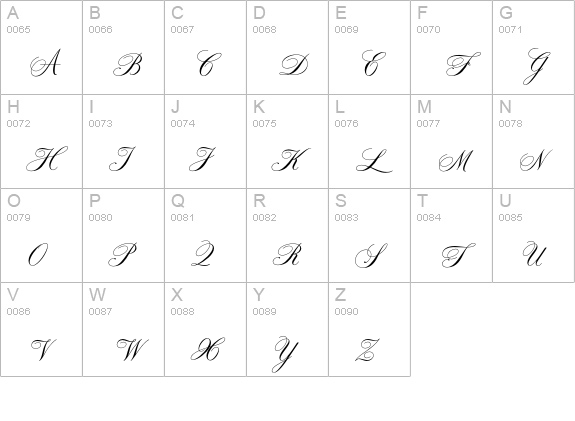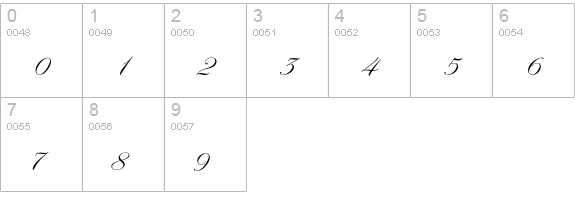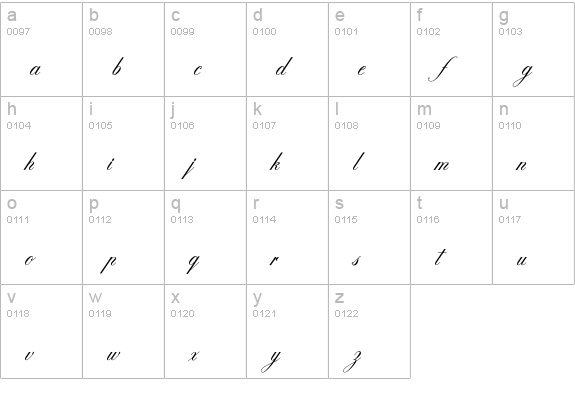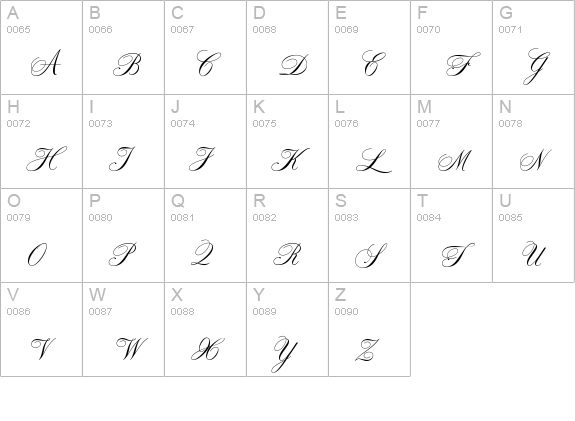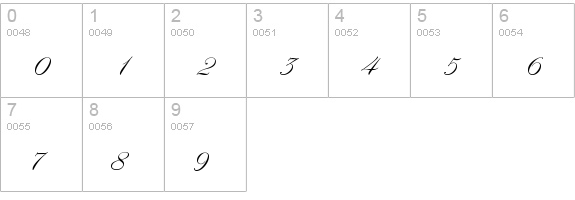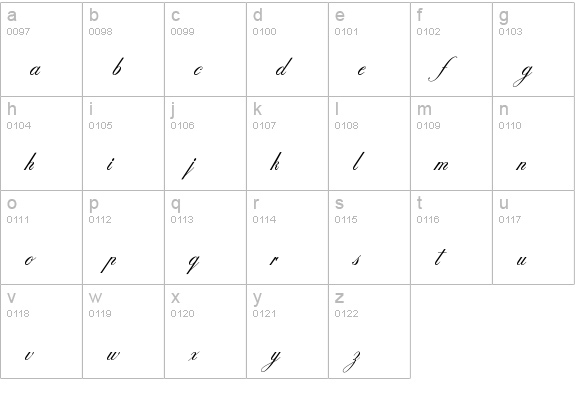
OPTIZepplin-Script Font Details
OPTIZepplin-Script is a beautifully designed font that exudes elegance and sophistication. With its delicate curves and flowing lines, this script font is perfect for adding a touch of luxury to your projects. Whether you are designing wedding invitations, branding materials, or social media graphics, OPTIZepplin-Script will elevate your designs to the next level. What sets OPTIZepplin-Script apart is not only its stunning aesthetics but also its versatility. This font can be used for a wide range of design projects, from formal and professional to whimsical and creative. Its graceful letterforms make it easy to create eye-catching typography that captivates your audience. And the best part? OPTIZepplin-Script is completely free to download at FontsMarket.com. So you can access this premium font without breaking the bank. Don't miss out on the opportunity to enhance your designs with the elegant charm of OPTIZepplin-Script. Download it today and let your creativity soar.